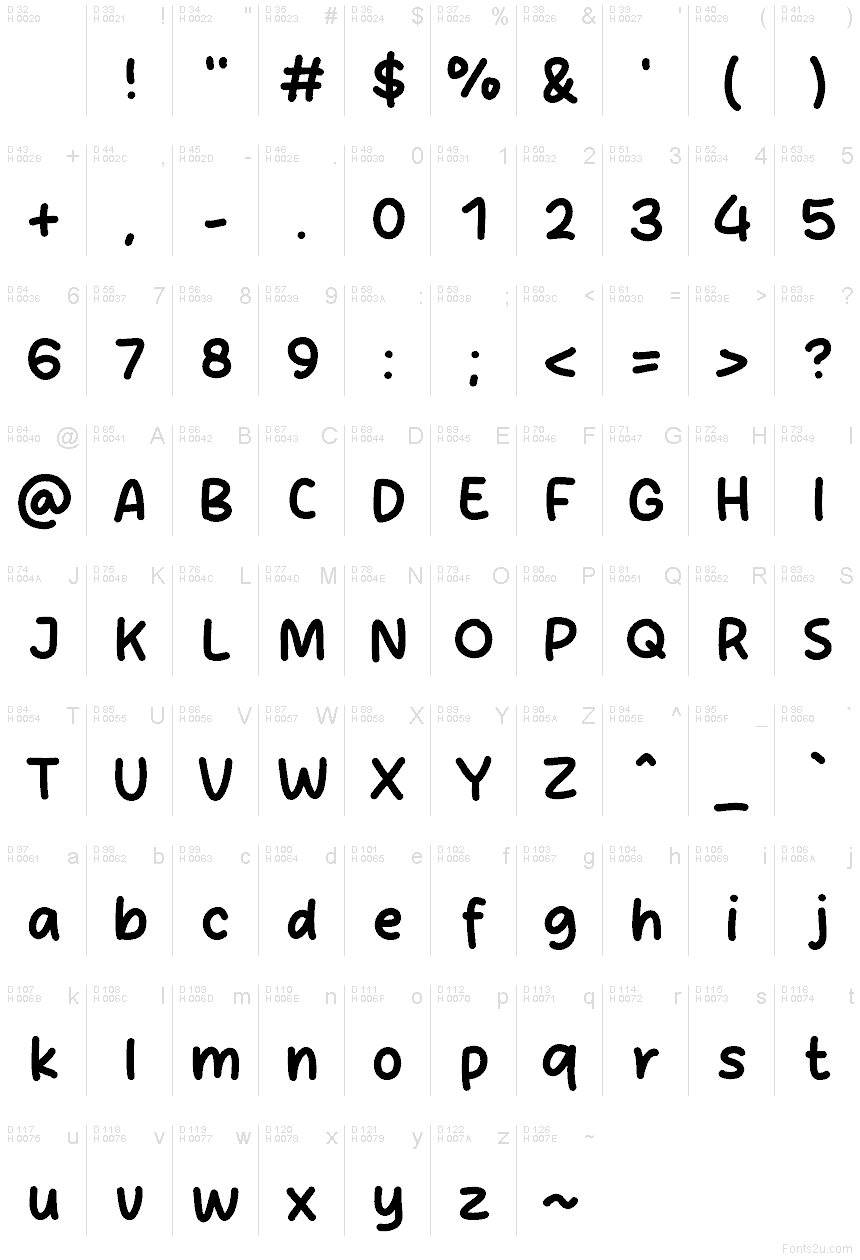
Fresh Jam
Fresh Jam font by Origin Type is a free handwritten font with a casual, friendly, and approachable appearance. It holds a modern touch that enables it to have an inviting atmosphere when used in different art and design projects. The interesting side of this font stems from its fantastic experimentation with space and presence.
Because of its elegant outlook, the font is ideal for almost all brand designs like clothing lines, cosmetics, hospitality businesses, stationery designs and more. Utilize it on invitations to important social events like weddings or birthday parties so you can easily wow your guests by the simplicity of elegance!